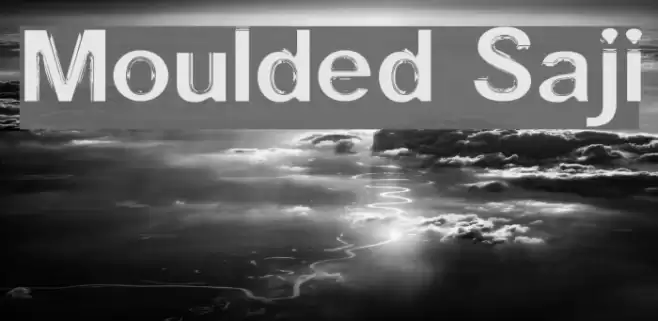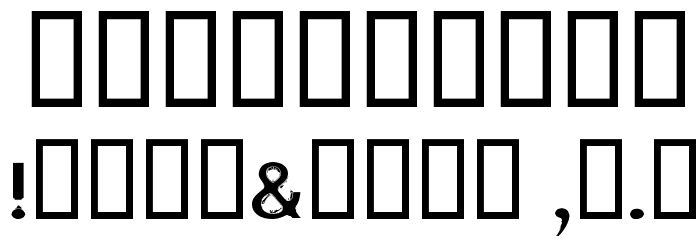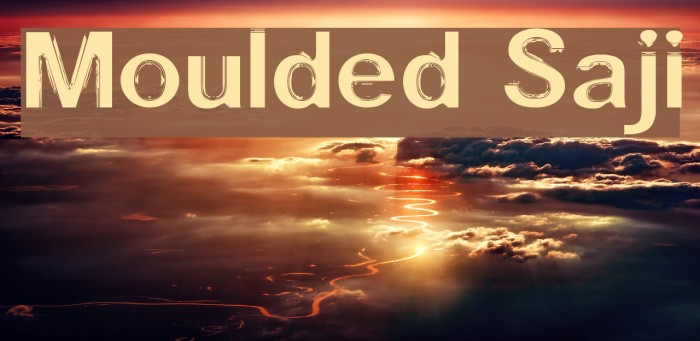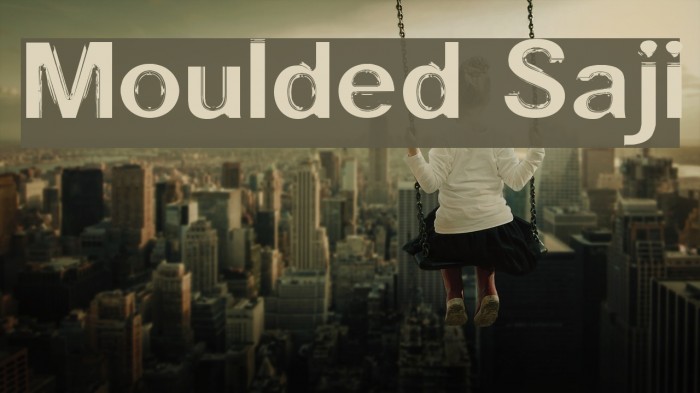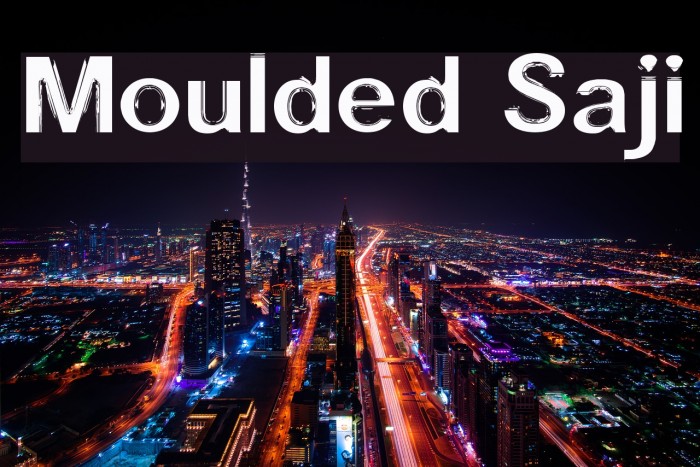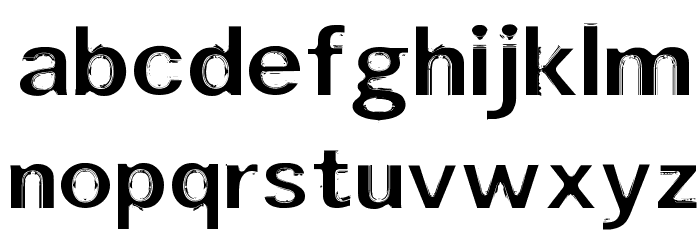
Moulded Saji Font
Moulded Saji Description
This font features a bold and modern design with a strong presence. The uppercase letters are robust and commanding, while the lowercase letters maintain a consistent weight, offering a balanced look. The characters are slightly condensed, which enhances its bold appearance. The font's clean lines and minimalistic style make it suitable for contemporary design projects. The contrast between the strokes is medium, providing a clear and readable text without being overly dramatic. The special characters are designed to match the overall aesthetic, ensuring consistency across all text elements.
A bold, modern font with medium contrast and slightly condensed characters from Uncategorized fonts.
- Proposed Projects: Ideal for branding, headlines, posters, and modern web design.